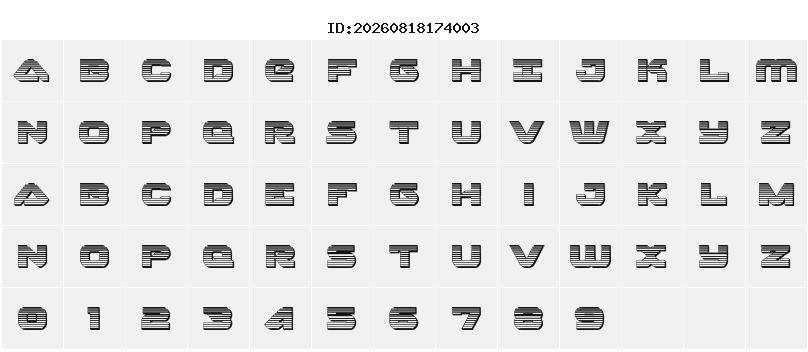
Skyhawk Chrome Preview
• Font Name: Skyhawk Chrome
• Full Font Name: Skyhawk Chrome
About Skyhawk Chrome.ttf
Skyhawk Chrome.ttf is a modern, elegant sans-serif font designed for ultimate readability and visual harmony. Perfect for branding, headlines, web design, and print materials.